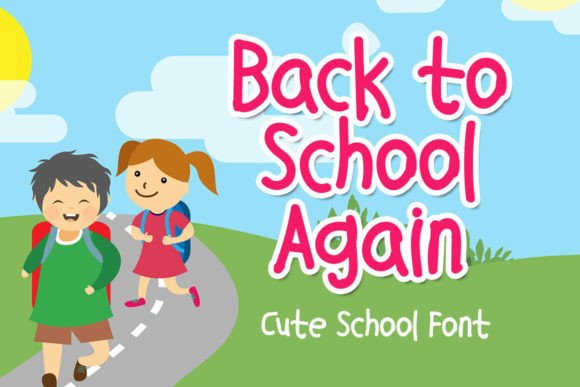
Unleash the Charm of Back to School Again Font: Where Whimsy Meets Legibility
Journey into the realm of Back to School Again, a script font family that exudes both playfulness and elegance. This remarkable creation by Eddygoodboy is more than just a collection of letters; it's an artistic expression that will elevate your designs to new heights. Let's delve into the captivating world of Back to School Again and discover why it's the perfect choice for your next creative project.
A Masterpiece of Creative Expression
Back to School Again is a script font family that captures the essence of nostalgia and charm. Each character is meticulously crafted with a touch of whimsy, reminiscent of handwritten notes and the magic of childhood. Its distinct style adds a personal touch to your designs, making them stand out from the ordinary.
Effortless Versatility for Diverse Design Needs
With its multiple weights and styles, Back to School Again is a font family that adapts seamlessly to a wide range of design projects. Whether you're creating eye-catching headlines, captivating body text, or unique logos and branding materials, Back to School Again has the versatility to match your vision.
The Perfect Match for Card Games and More
If you're a game designer seeking a font that embodies the spirit of friendly competition and playful strategy, look no further. Back to School Again is the ideal choice for card games, adding a touch of whimsy and charm to your creations. Its legibility ensures that game instructions and card text remain clear and easy to read, even in the heat of the game.
Embark on a Creative Journey with Back to School Again
With Back to School Again, the possibilities are endless. Let your imagination soar as you create stunning designs that capture the essence of nostalgia, playfulness, and elegance. Whether you're a seasoned designer or just starting out, this font family will empower you to create designs that leave a lasting impression.